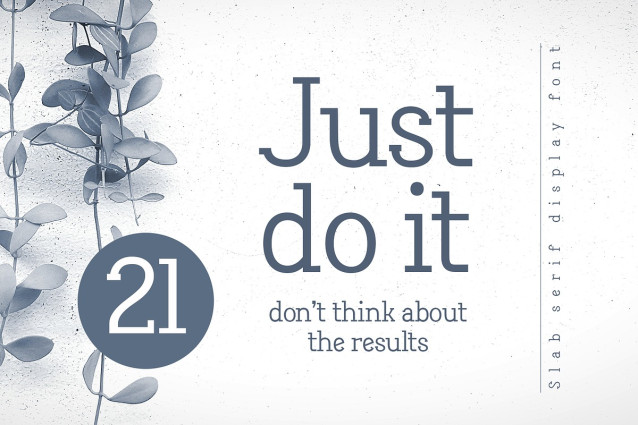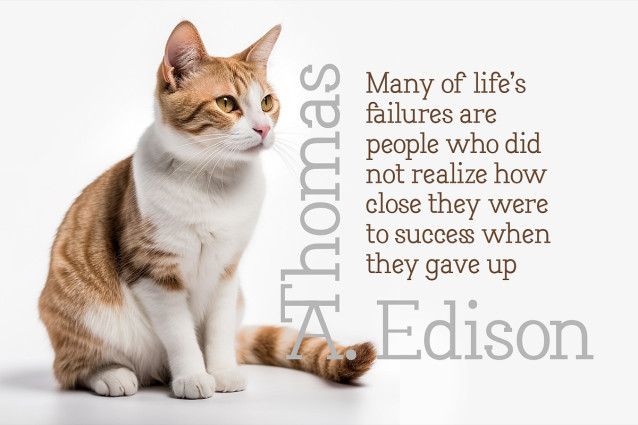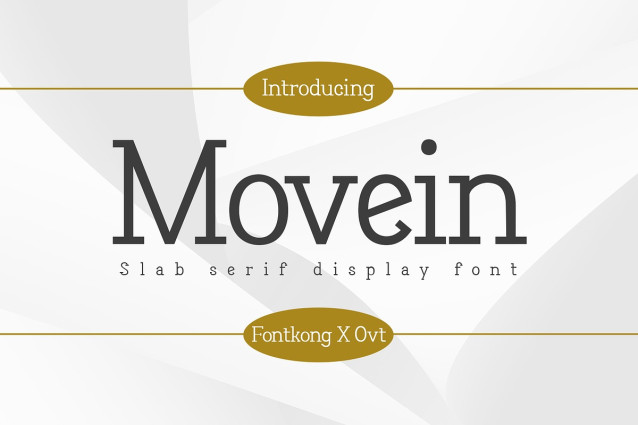
Movein Font
Movein Font a slab serif display font that combines boldness with classic elegance. Perfect for designers, advertisers, and creatives seeking to make a strong visual impact, Movein offers a timeless and sophisticated look that commands attention.
Ideal for headlines, posters, logos, packaging, and branding materials, Movein’s sturdy serifs and clean lines provide a strong and authoritative aesthetic. Each character is meticulously crafted to ensure readability and visual appeal, making it perfect for projects that require both boldness and refinement.
The “Movein” font includes a complete set of uppercase and lowercase letters, numbers, punctuation marks, and special characters. This versatility allows for a wide range of design applications, from impactful headlines to memorable logos.
Make bold statements with classic style using Movein, the slab serif display font that exudes confidence and sophistication.